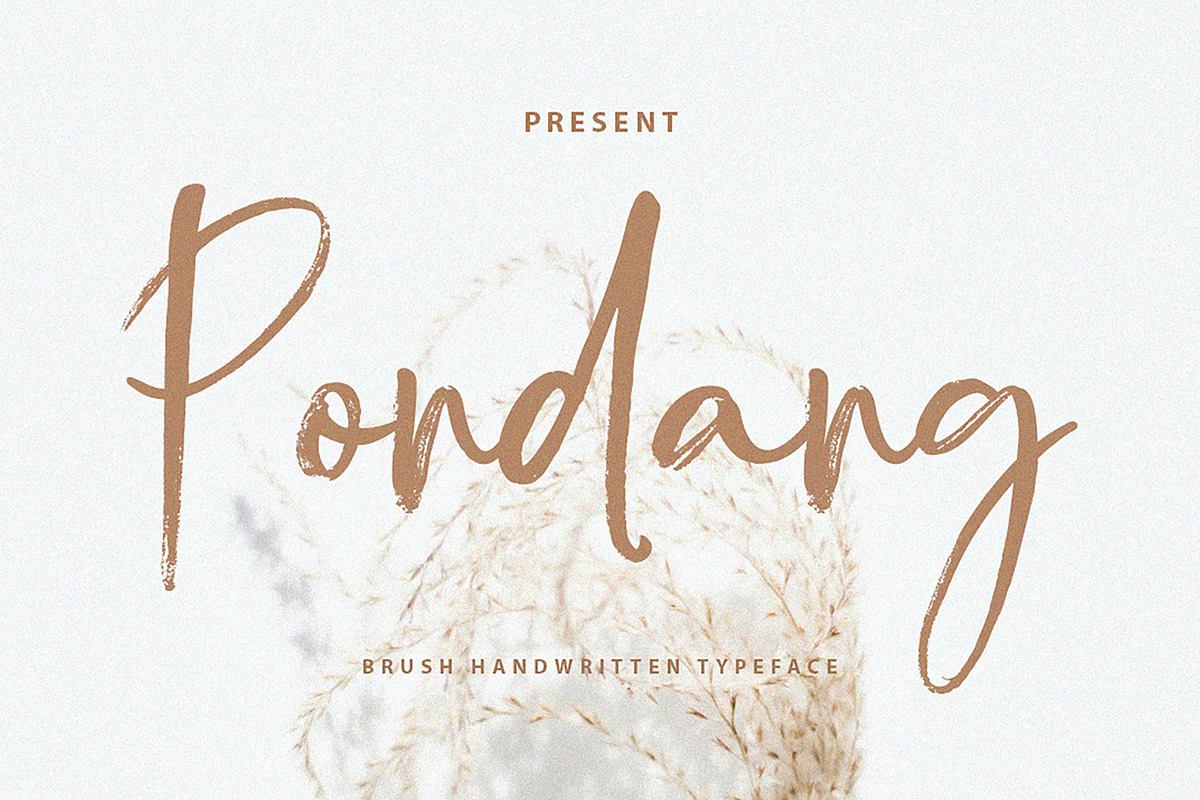
Pondang Brush Free Download
Pondang Brush Font Free Download
Pondang Brush Font Free Download is a bold and expressive brush script typeface that adds a handcrafted, artistic touch to any project. Perfect for logos, posters, invitations, and more, Pondang features dynamic brush strokes that bring a raw, authentic feel to your designs. Its unique, flowing style makes it ideal for creative projects that need a bit of personality and flair.